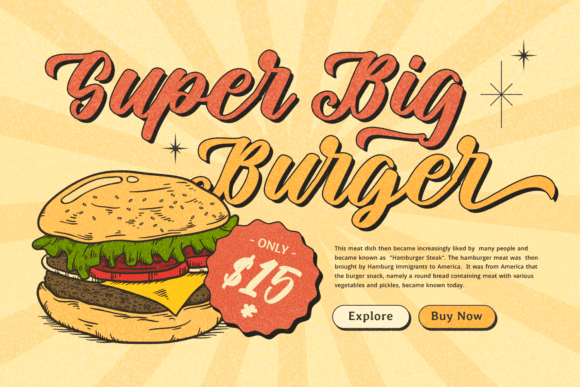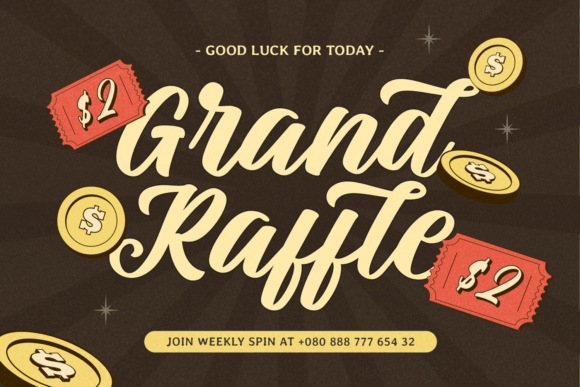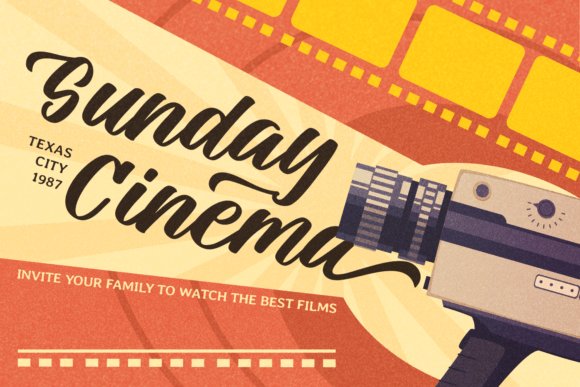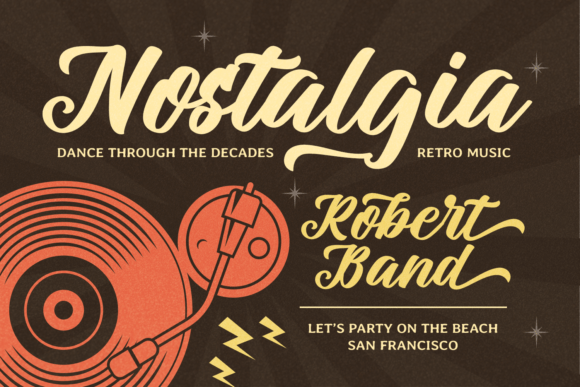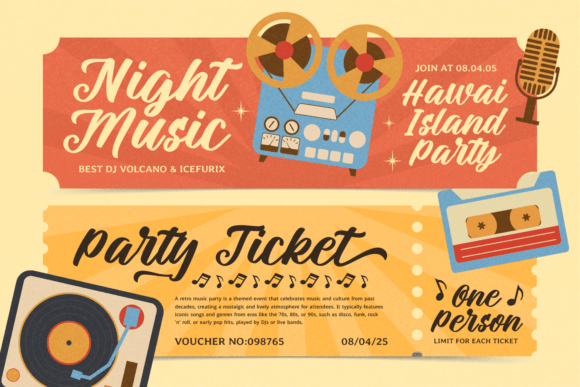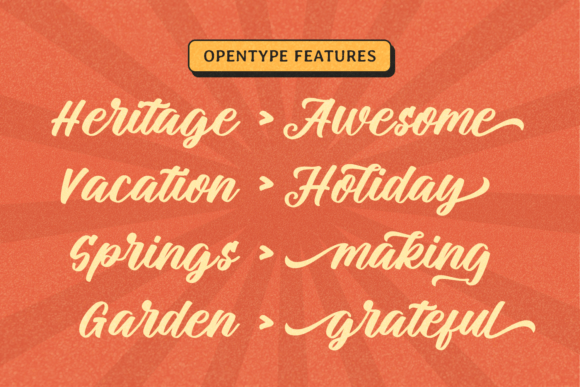
The Timeless Charm of Auckland Font: A Designer’s Delight
I still remember the design project that led me to discover Auckland Font. I was working on a Christmas invitation for a client’s family gathering, and I was struggling to find the perfect font that would evoke a warm, nostalgic feel. The design needed to be classic yet sophisticated, and I wanted it to stand out from the usual festive fonts. That’s when I stumbled upon Auckland Font, and it instantly became my go-to choice.
Auckland Font: A Vintage-Inspired Script
Auckland Font is a beautiful, vintage-inspired script handwritten font that combines timeless charm with elegant craftsmanship. Its flowing strokes and smooth curves give it a retro aesthetic, perfect for creating designs with a classic yet sophisticated touch. Whether you’re working on invitations, signatures, or seasonal themes like Christmas, New Year, Easter, and Thanksgiving, Auckland Font adds a warm, nostalgic feel to any project.
- ✅ Elegant and sophisticated design
- ✅ Perfect for creating vintage-inspired designs
- ✅ Works well for invitations, signatures, and seasonal themes
- ✅ Easy to read and understand
- ⚠️ Limited availability of stylistic alternates
- ⚠️ May not work well for very long texts or body copy
Auckland Font was inspired by the classic scripts of the past, with a focus on elegance and sophistication. The designer wanted to create a font that would evoke a sense of nostalgia and timeless charm, while still being modern and versatile. The result is a beautiful, vintage-inspired script font that’s perfect for a wide range of design projects.
Q: What is Auckland Font?
A: Auckland Font is a vintage-inspired script handwritten font that combines timeless charm with elegant craftsmanship.
Q: What can I use Auckland Font for?
A: You can use Auckland Font for a wide range of design projects, including invitations, signatures, seasonal themes, and more.
Q: Is Auckland Font easy to read?
A: Yes, Auckland Font is designed to be easy to read and understand, making it perfect for use in body copy or longer texts.